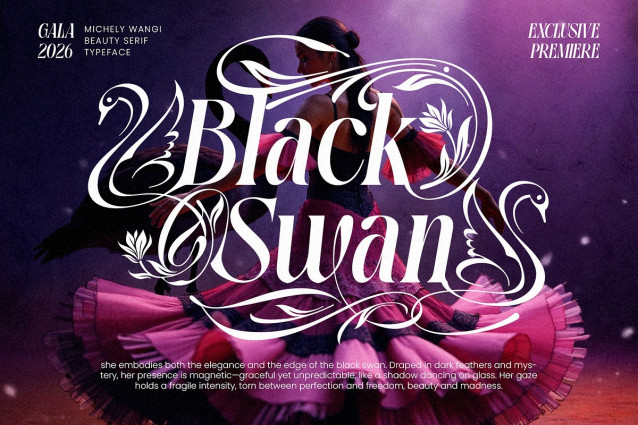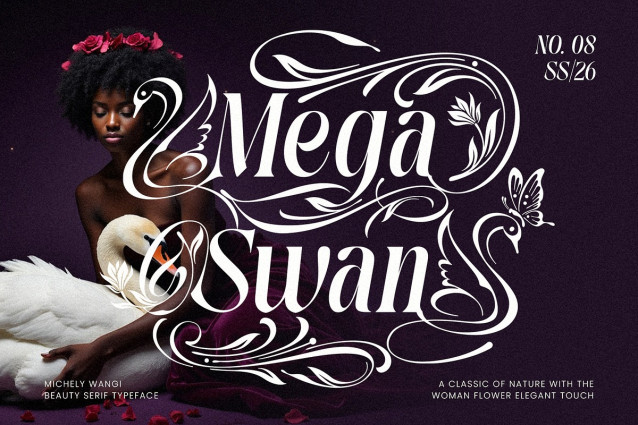
Michely Wangi Font
Michely Wangi Font is a unique slanted serif that masterfully blends its strong, classic letterforms with the elaborate, flowing swashes typically found in script fonts. This fusion creates a dynamic and expressive typeface that is both readable and artistically stunning. Each character is meticulously crafted to feel alive, making it perfect for designs that require a statement of luxury, elegance, and natural charm.
From wedding invitations that whisper romance to branding that speaks of luxury, Michely Wangi provides the versatility and beauty you need. The font is rich with decorative elements, allowing you to transform simple text into a captivating piece of art.